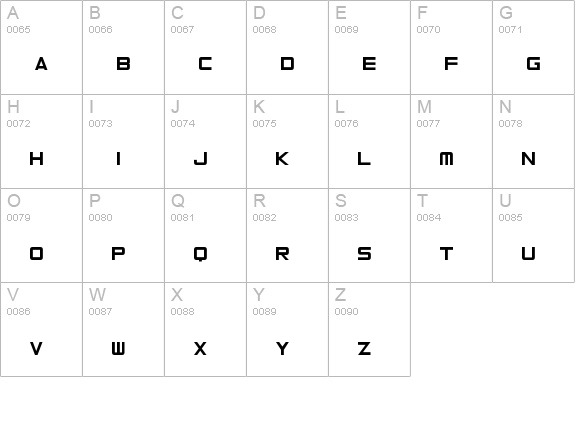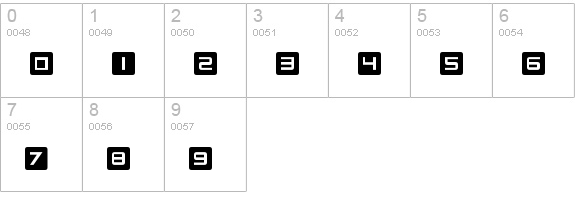
Curved Square Font Details
Curved Square is a donationware font in the Modern > Techno category, designed by Darrell Flood. It has been downloaded 97 times and is available for Windows, Mac and Linux.
Curved Square font is a modern and stylish typeface that combines the sleekness of a square design with elegant curves. This unique font is perfect for creating eye-catching titles, logos, and branding materials. Its clean lines and distinctive shape make it stand out from the crowd, adding a touch of sophistication to any project.